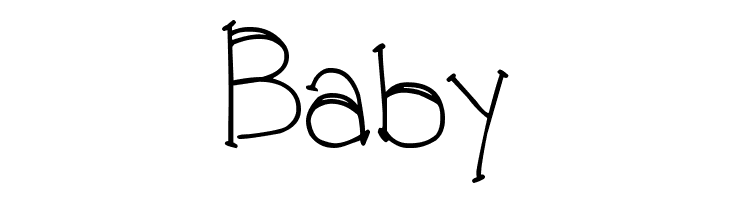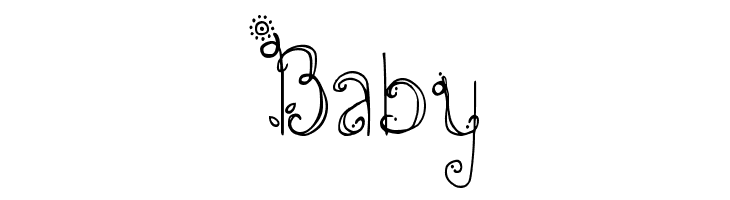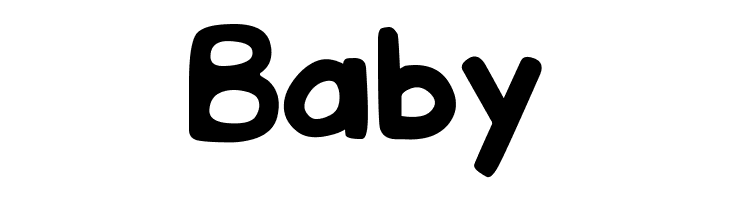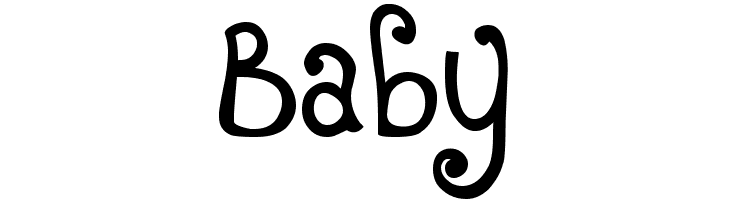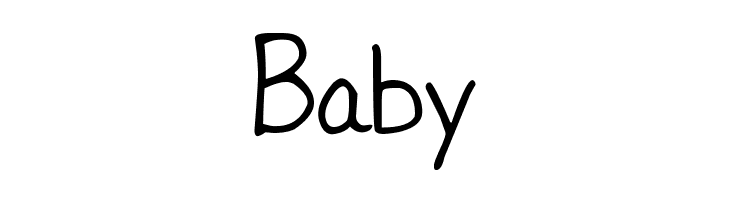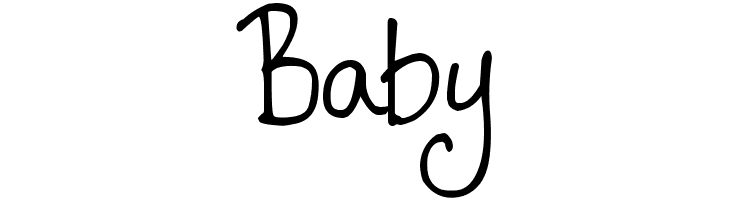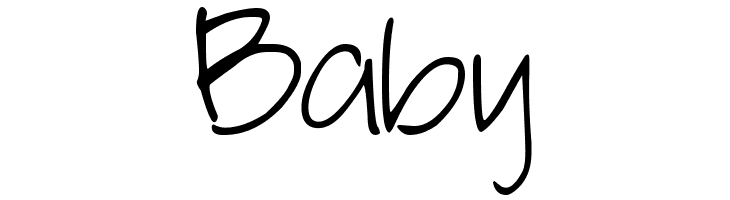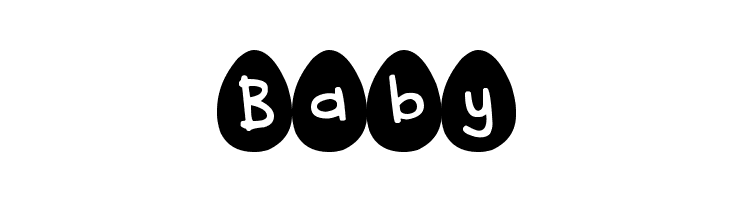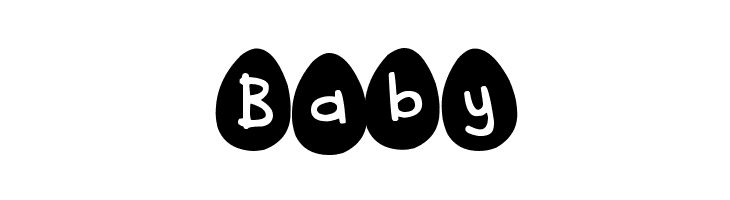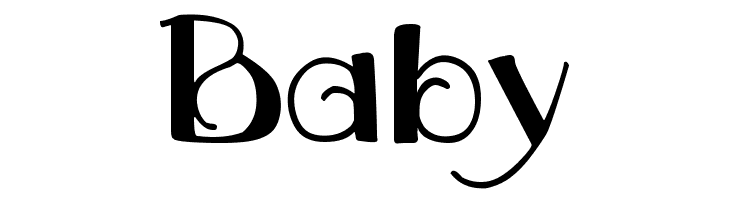
A playful and whimsical font with dynamic curves and angles.
A playful, egg-shaped font with a hand-drawn, whimsical style.
A playful handwritten font with a casual and friendly vibe.
A whimsical, floral-themed decorative font with playful, curly lines.
A playful, bold font with rounded strokes and a friendly appearance.
A playful, handwritten-style font with a childlike, informal appearance.
A playful, bold font with quirky, curvy letterforms and a lively style.
A playful, handwritten font with a whimsical and informal style.